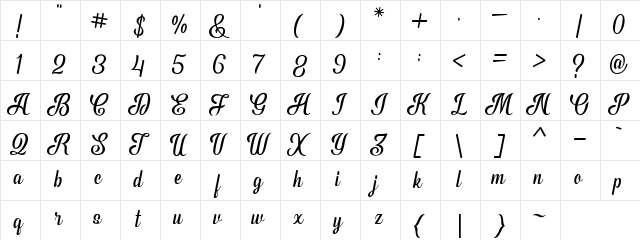
Phyton Script Demo Regular
Design Context for Phyton Script Demo Typeface
Phyton Script Demo flows with the natural rhythm of handwritten lettering, making it ideal for designs that call for warmth and personal expression.
Font Pairing: Combine Phyton Script Demo with a simple geometric sans for maximum contrast — the tension between flowing curves and clean structure is a classic typographic pairing.
Pro Tip: Use Phyton Script Demo for short runs of text — names, titles, or taglines. Extended body copy in script faces tires the eye quickly.